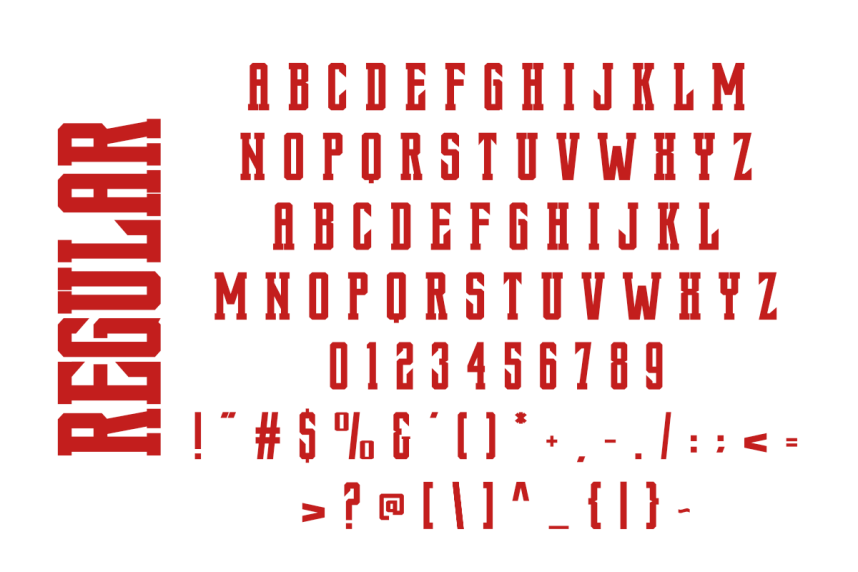
Single Love Font
Single Love Font, an innovative slab serif font that marries modern versatility with a dash of vintage charm. This typeface features regular, italic, outline, and textured styles, perfect for adding a unique stand-out dimension to your creative project.
Whether it’s making a stylish statement on a t-shirt, adding an impactful element to your logos, or infusing a beautiful touch to your quotes, Single Love does it all.
Ideal also for laser cuts, signs, clothing items, print materials, labels, or simply giving your mug design a unique feel. If your project demands a fusion of modern flair and classic sophistication, Single Love has you covered.